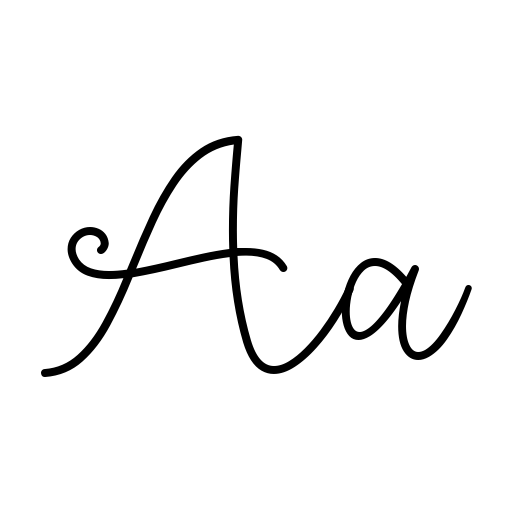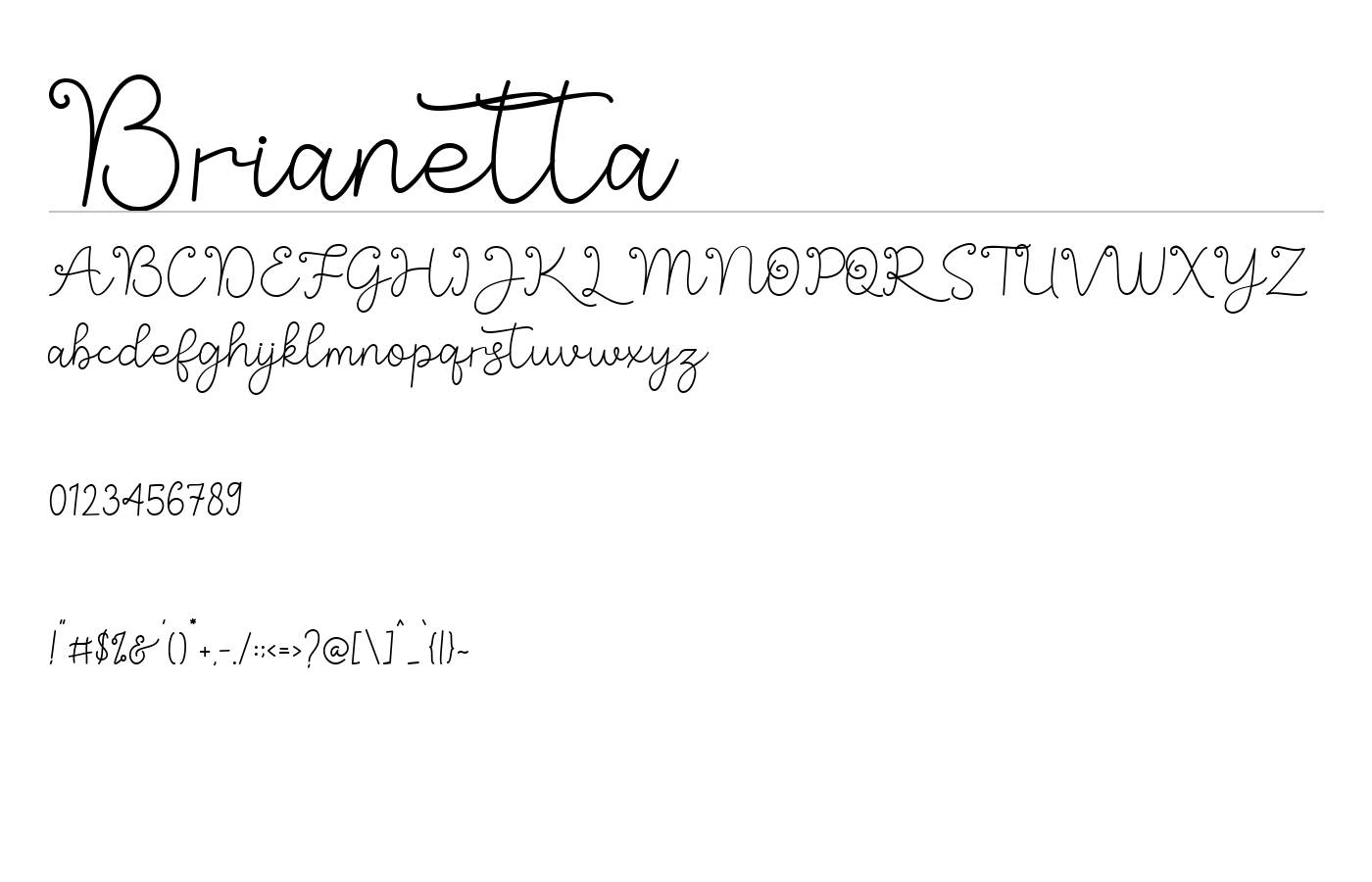
Brianetta is a delicate and elegant script font with a playful, hand-drawn feel characterized by its thin strokes and whimsical curls on uppercase letters. Its light weight and airy spacing make it ideal for creative and feminine designs such as wedding invitations, greeting cards, and boutique branding. The font’s charming personality shines best in headlines and decorative uses where a touch of graceful sophistication is desired.
Brianetta Font
About Brianetta Font
| Font family | Brianetta Font |
| Designer | AEN Creative Studio 2021 |